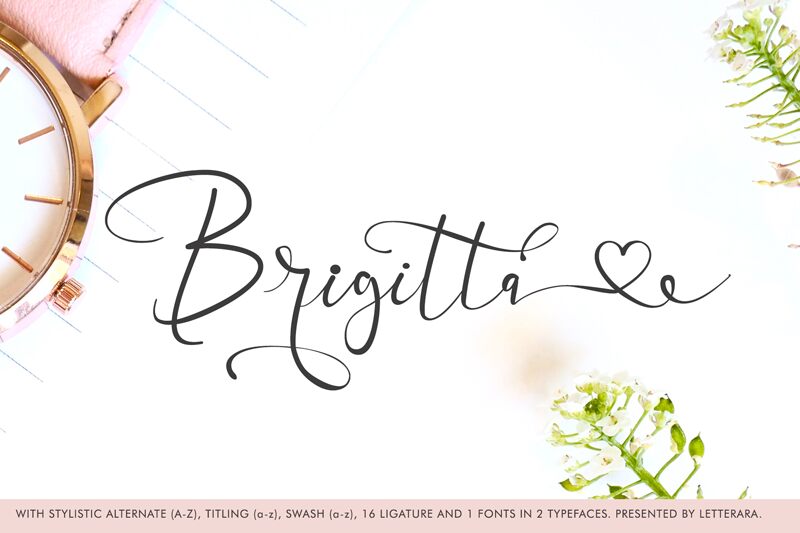
Brigitta
Brigitta is a modern handwritten calligraphy font. This font can make your writing and brand elegant or beautiful. You can see it in the picture shown.
Brigitta is perfect for beautiful logos, elegant logos, upscale packaging, wedding stationery, websites, and any other projects requiring a handwritten and luxurious touch.
A wide range of swashes (a-z), alternates (A-Z), titling (a-z), and ligature are included so that you can give your logo or name a custom, hand-calligraphy look.